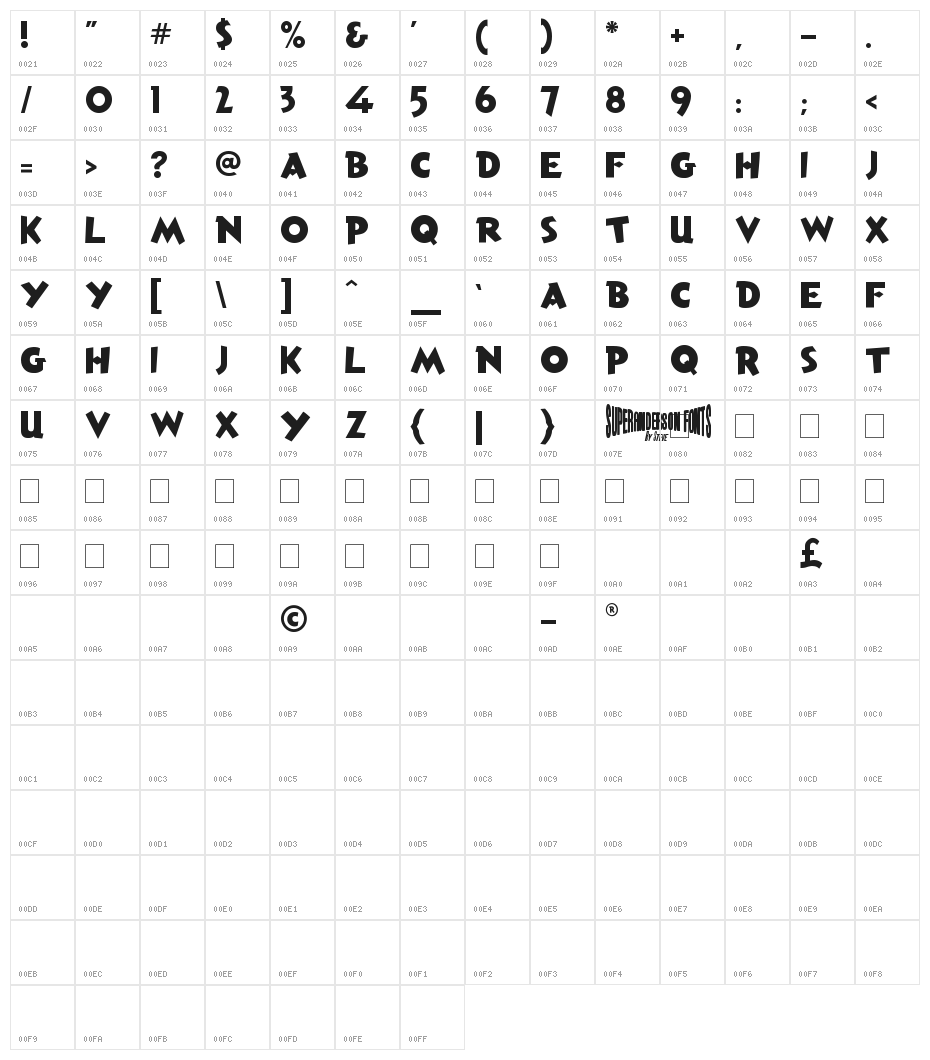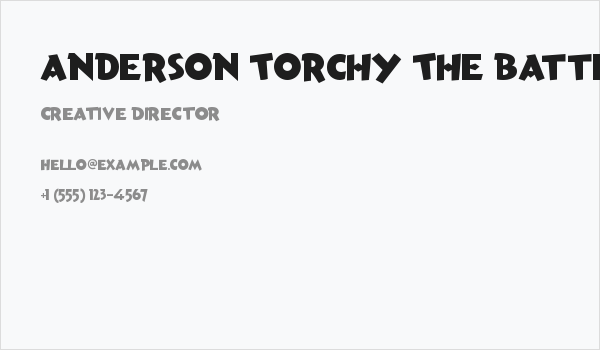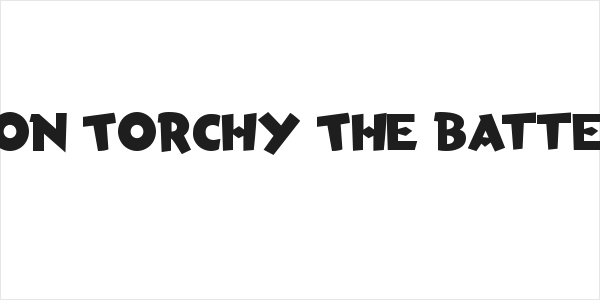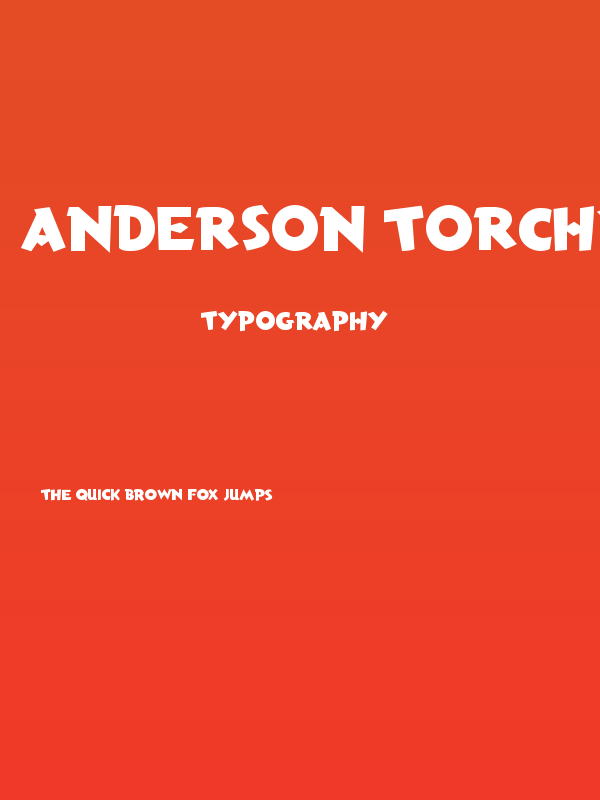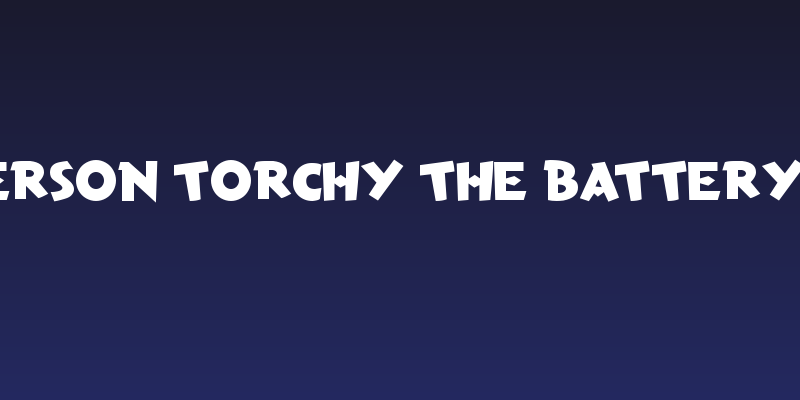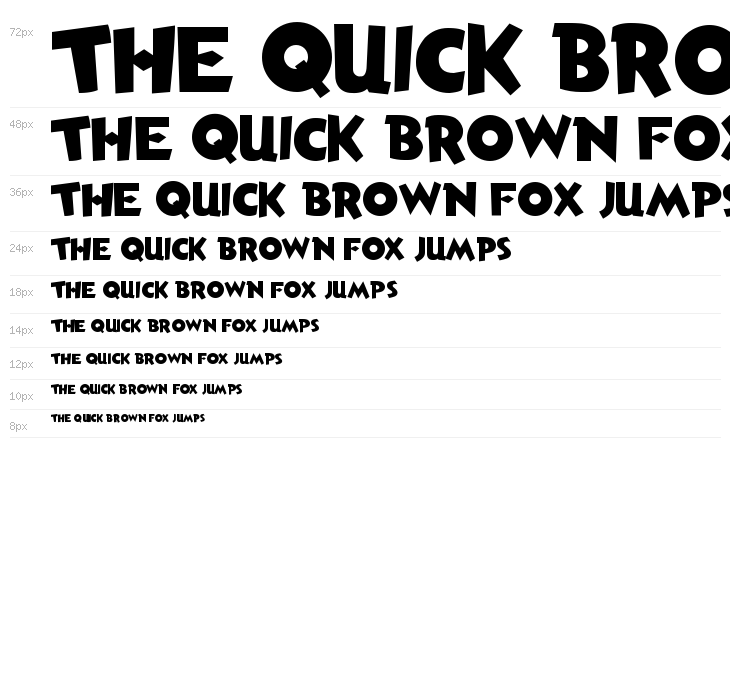
Anderson Torchy The Battery Boy Font
Anderson Torchy The Battery Boy Description
This bold and dynamic font features thick, angular strokes that give it a strong and impactful presence. The uppercase letters are particularly striking, with sharp edges and a slightly condensed form that enhances their boldness. The lowercase letters maintain the same robust style, ensuring consistency across text. Numbers and special characters are equally bold, with unique shapes that add a playful yet powerful touch. The font's overall appearance is both modern and retro, making it versatile for various design needs.
| Overall Style | Modern, Retro |
| Proposed Projects | Ideal for posters, logos, and branding materials that require a strong visual impact. |